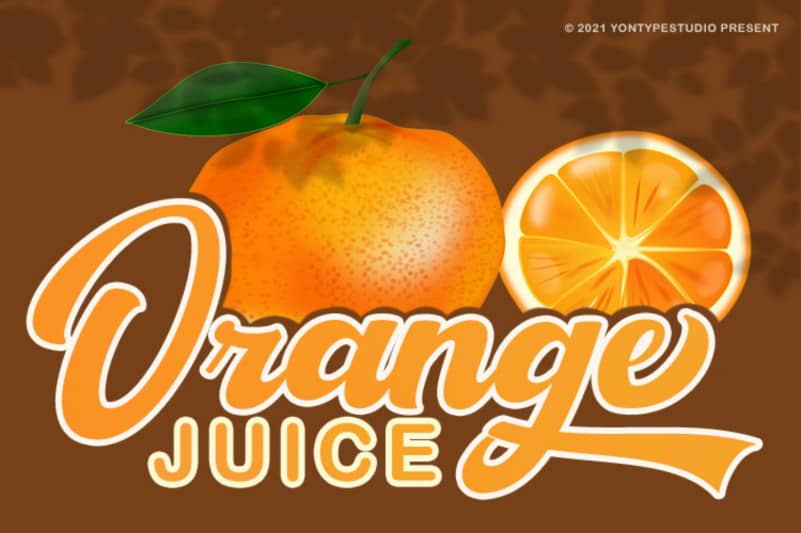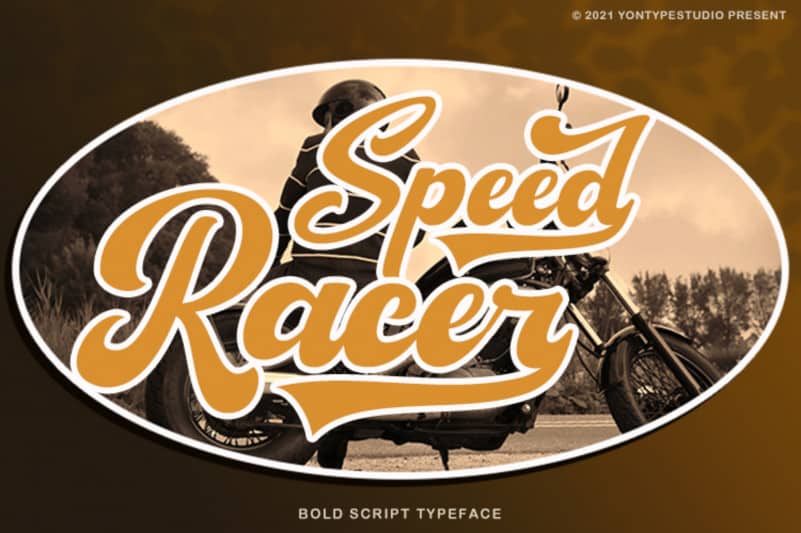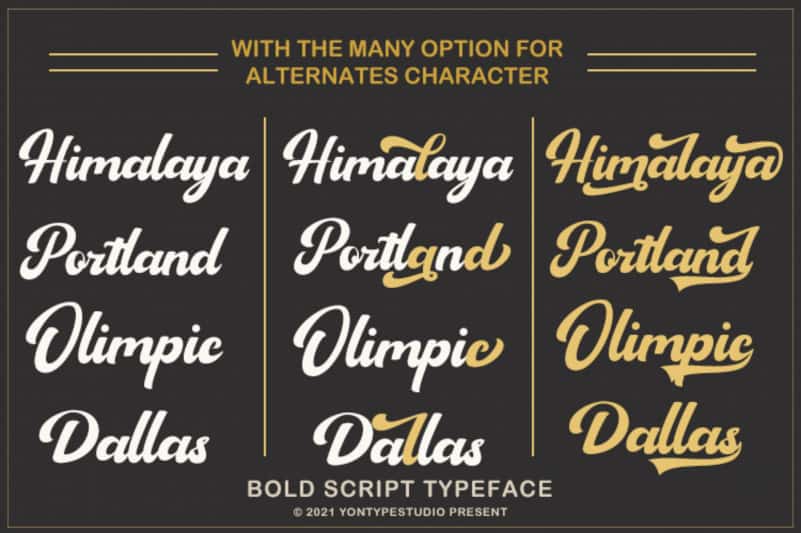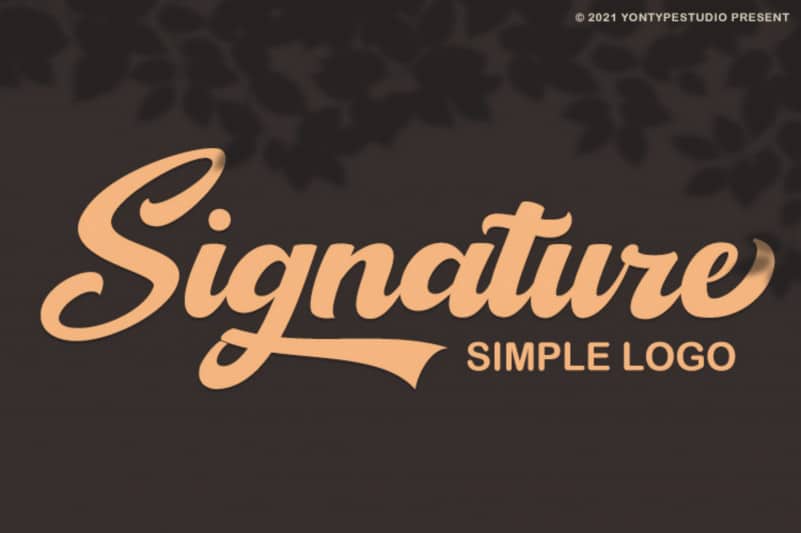
Sagha Script Font
Introducing Sagha Script Font – This multipurpose script typeface includes many different alternatives for each lower case. Make this typeface a swiss army knife in your Font Library. It is a lot of fun to use as each word can be changed to your liking. This typeface works very well for Logos and Clothing Designs. It’s also great for making Prints or Merchandise, as you can use the illustration quality of shapes to create artwork.